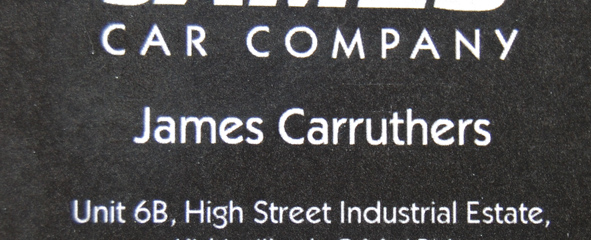
font ID please
Posted by Marcella Ross on 4 July 2008 at 09:34can anyone ID this for me please. I thought it was Kabel but it ain’t! Also thought it might be Metro but it’s not that either.
quote Shane Drew:Yes, also known as Kabel Regular too. 😉
I think the "j" is slightly different Shane?